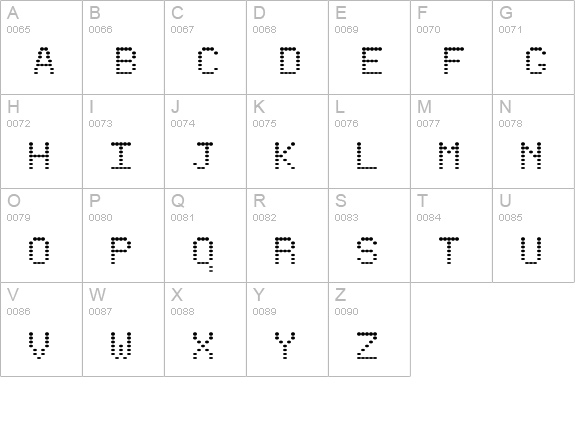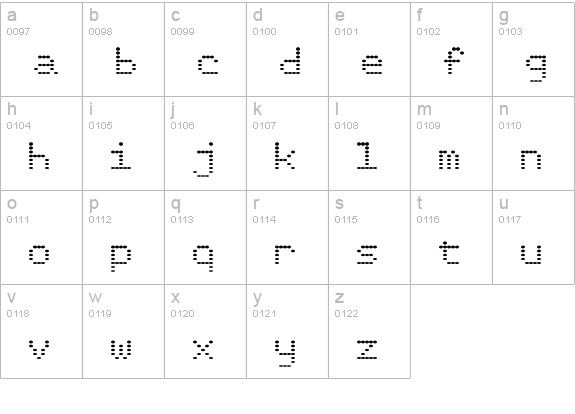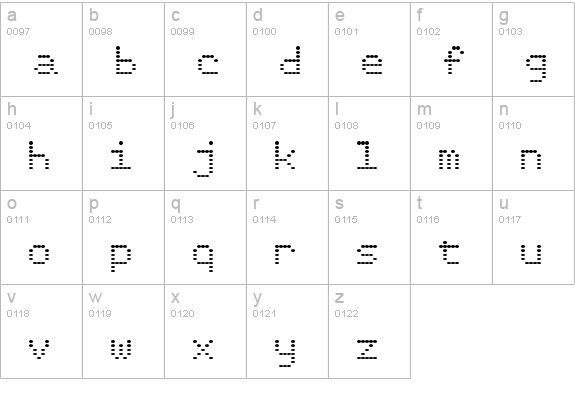
IrritationOne Font Details
Introducing IrritationOne font, a captivating typeface that will surely catch the eye of any design enthusiast. With its unique and edgy characteristics, this font is perfect for adding a touch of excitement and intrigue to your projects. IrritationOne font stands out from the crowd with its bold and angular letterforms, commanding attention and creating a strong visual impact. Its sharp edges and distinct style make it ideal for headlines, posters, logos, and any design that requires a powerful and modern aesthetic. But what sets IrritationOne font apart from the rest is the fact that it is free! Yes, you read that right. This exceptional font can be downloaded freely at FontsMarket.com, allowing you to unleash your creativity without any financial constraints. Whether you're a professional designer or a passionate hobbyist, this font offers you the opportunity to elevate your projects to new heights, all without breaking the bank. With its extensive character set, including uppercase and lowercase letters, numerals, punctuation marks, and special symbols, IrritationOne font provides you with all the tools you need to create visually stunning and impactful designs. Its versatility allows it to be used across a wide range of applications, from web design to print media, ensuring that your message is delivered with maximum impact and clarity. Not only does IrritationOne font offer incredible visual appeal, but it also provides exceptional legibility, ensuring that your audience can effortlessly read and understand your message. Its well-crafted letterforms ensure that each character is distinct and easily recognizable, even in smaller sizes or when used in lengthy passages of text. So why wait? Take advantage of this incredible opportunity to enhance your design projects with IrritationOne font. Download it for free at FontsMarket.com and let your creativity soar. With its captivating style, versatility, and affordability, IrritationOne font is a must-have addition to any designer's toolkit. Embrace the freedom to create and make a lasting impression with this remarkable font.